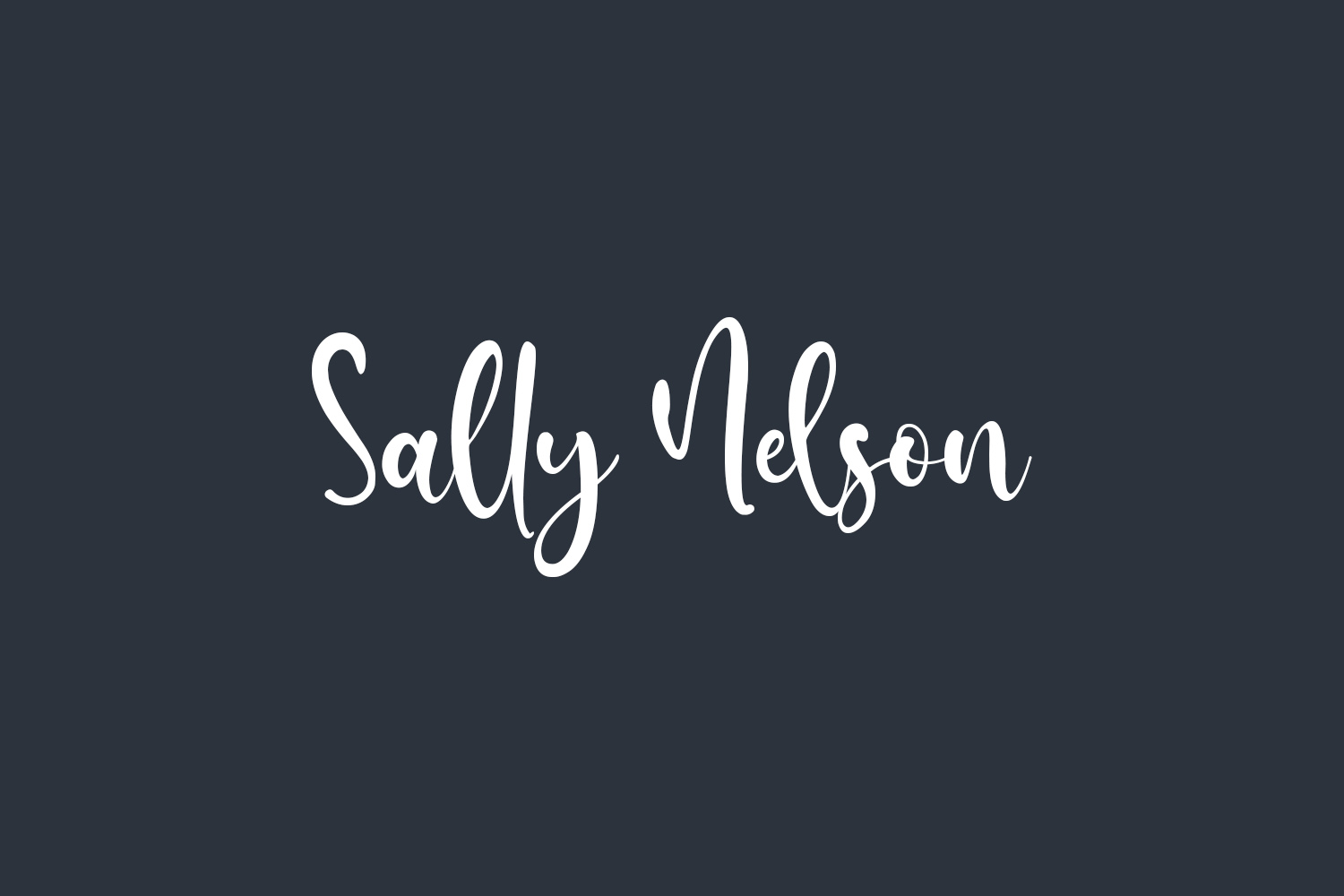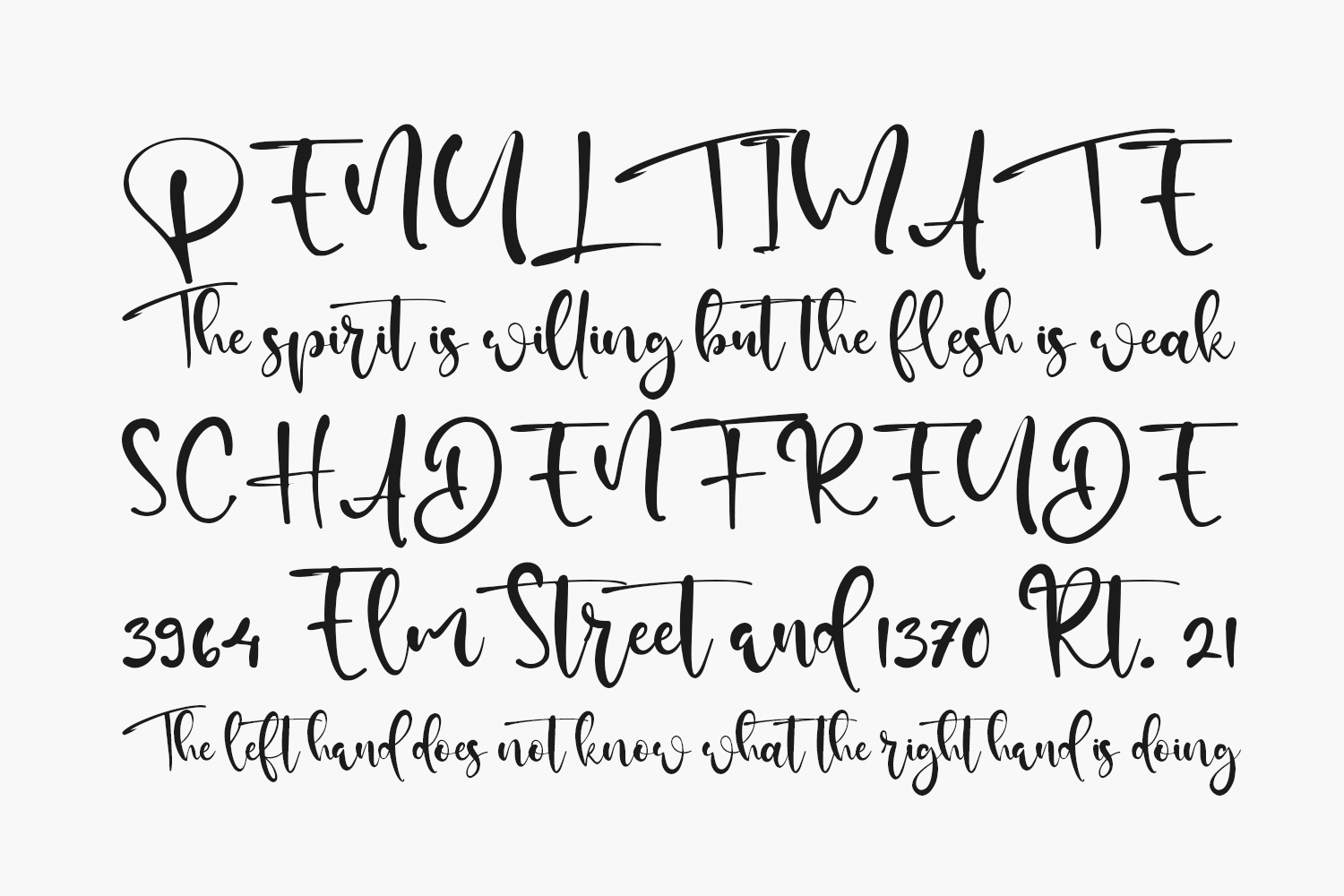
Sally Nelson Free Font is a playful and quirky handwritten font with a fun and informal style. It is perfect for use in children’s books, greeting cards, invitations, and other projects that require a more lighthearted and casual feel. The font features a full set of uppercase and lowercase letters, as well as numerals and punctuation, and is available in both regular and bold weights. Sally Nelson Font is also well-suited for use in branding, logos, and other design elements that require a more unique and distinctive look. Overall, Sally Nelson Font is a charming and delightful choice for any project that needs a touch of personality. Sally Nelson Free Font was designed by Kong Font and is free for personal or commercial use.